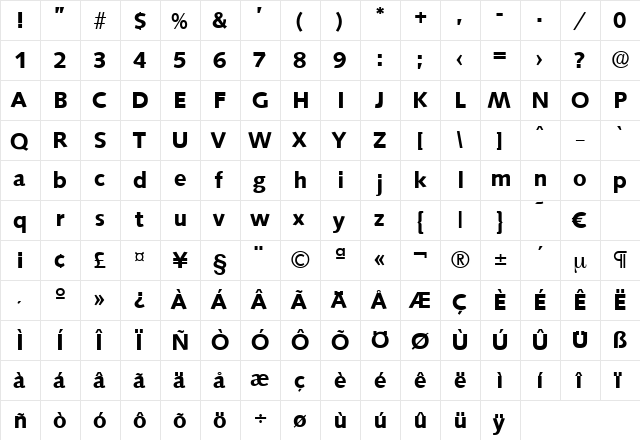
Saxony-DemiBold Regular Font Preview
Saxony-DemiBold Regular
Saxony-DemiBold Regular Font Details
Design Context for Saxony-DemiBold Typeface
Saxony-DemiBold offers clean, dependable letterforms without strong stylistic allegiance, making it a practical choice for designers who need flexibility. The heavy weight commands attention and anchors typographic hierarchies.